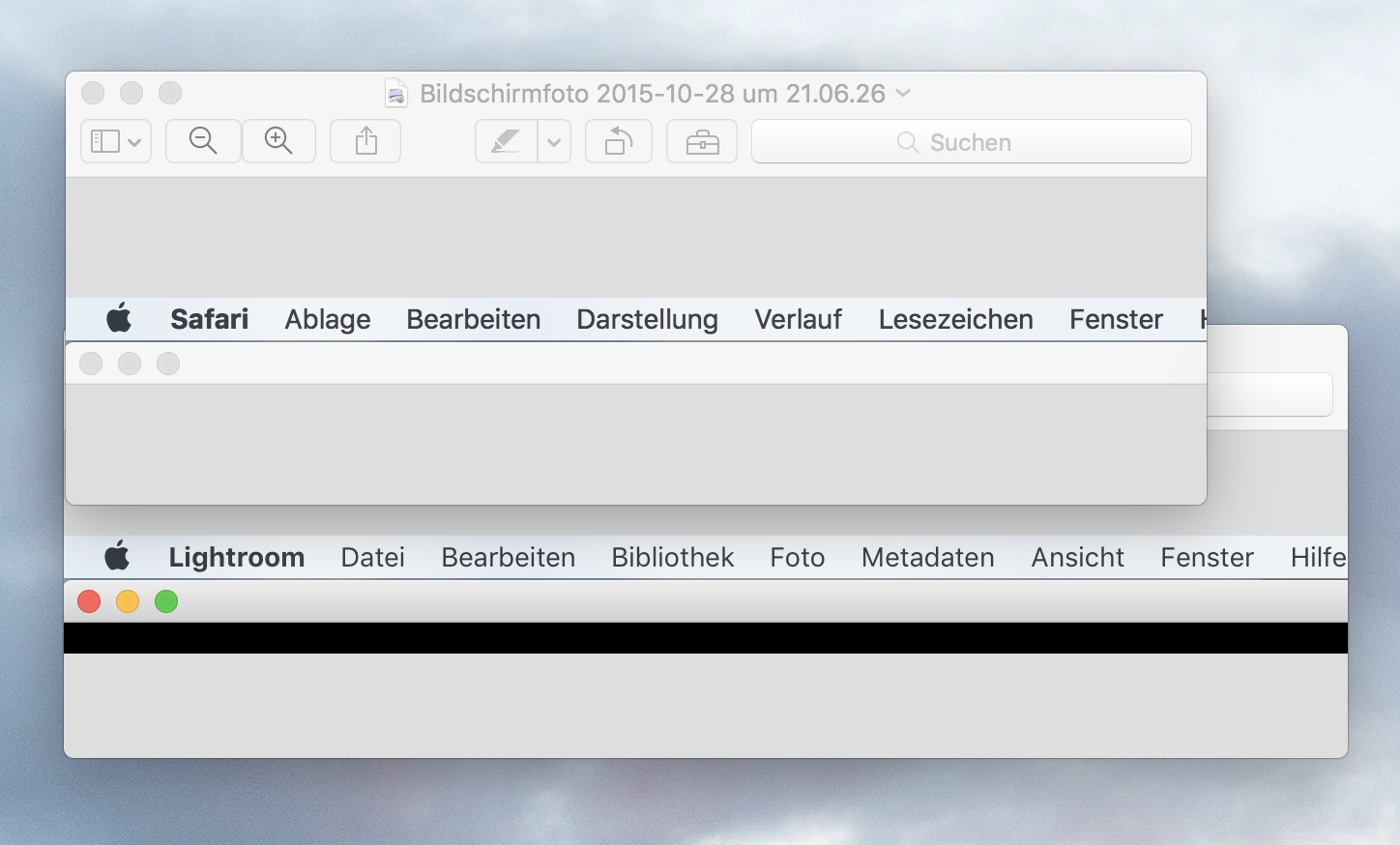
Does somebody noticed that Lightroom 6 still uses the old font under OS X 10.11? See my screenshot attached to know what I mean. Any solution out there to fix this?
cookiemonster89 said: Does somebody noticed that Lightroom 6 still uses the old font under OS X 10.11? See my screenshot attached to know what I mean. Any solution out there to fix this? Click to expand... That's still the new San Francisco, it's just that the weight is slightly thinner. Likely a bug, I see the same behavior with my computer, but I'm also not running the newest version.